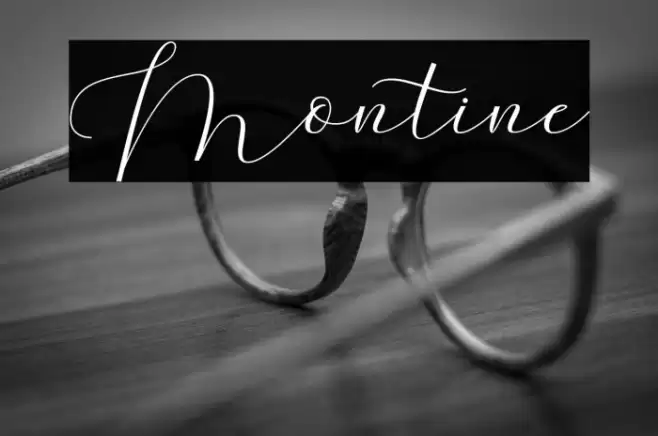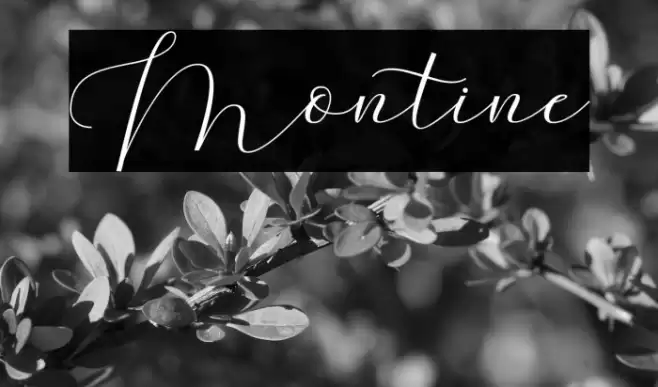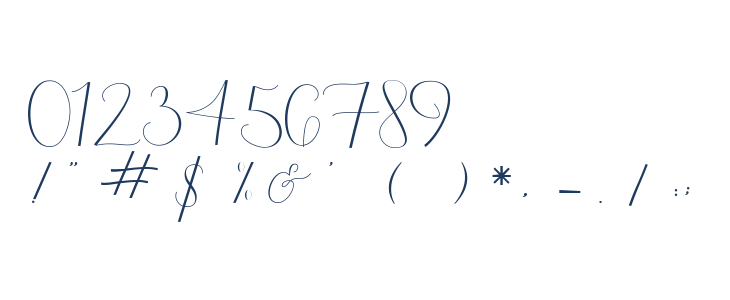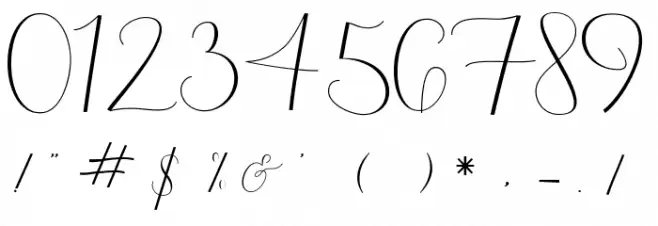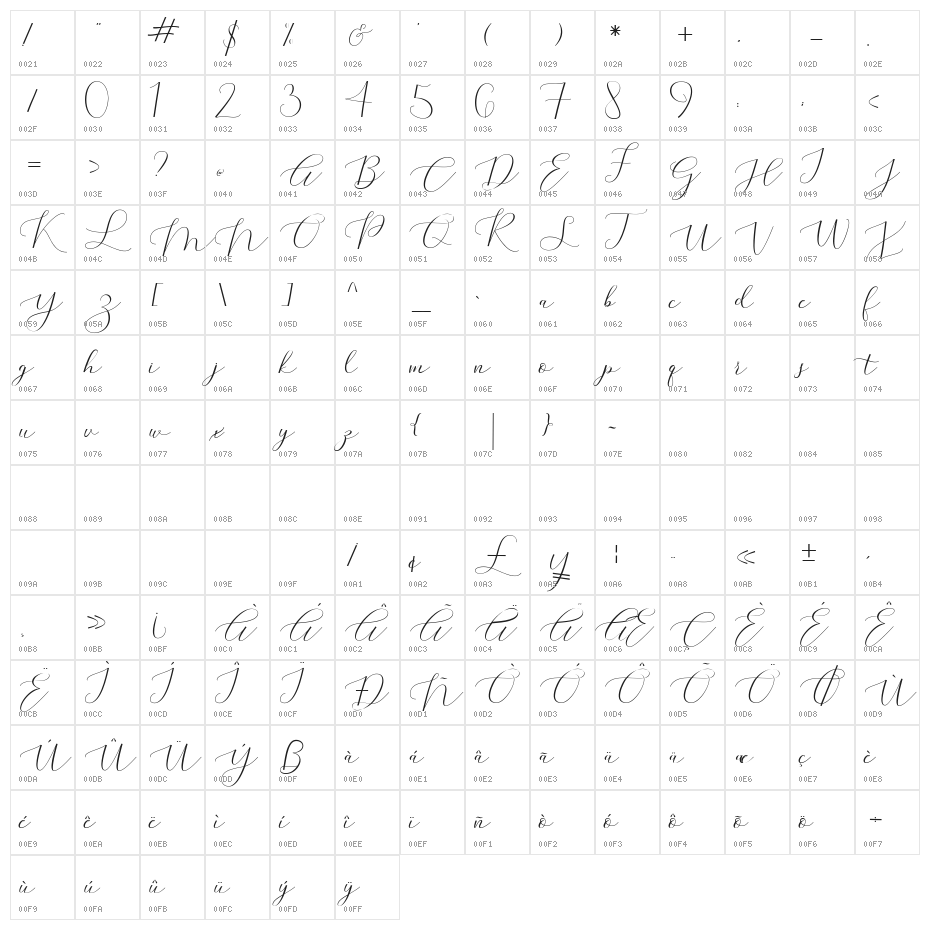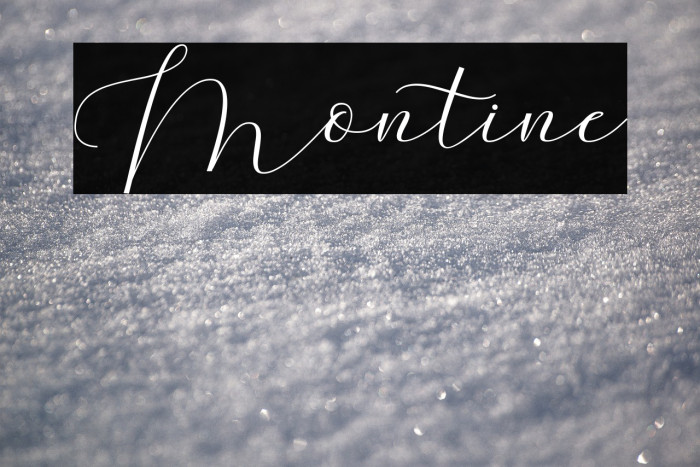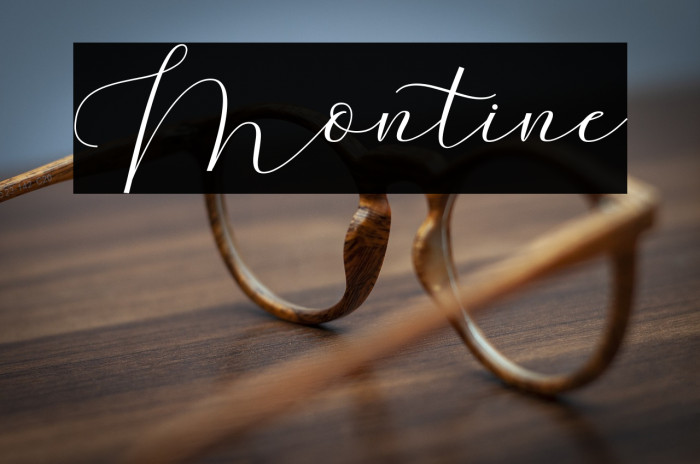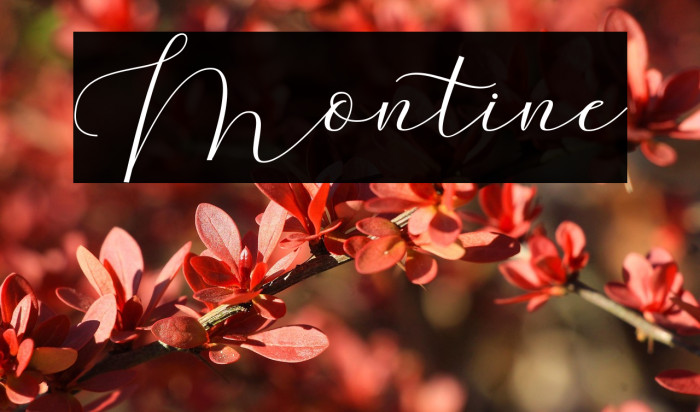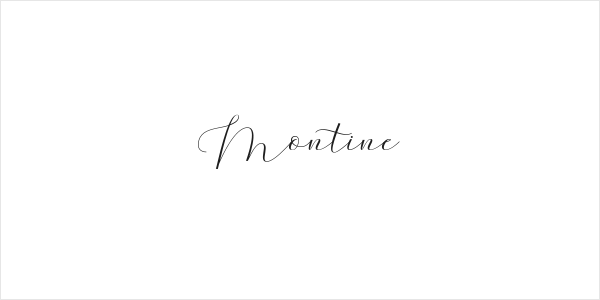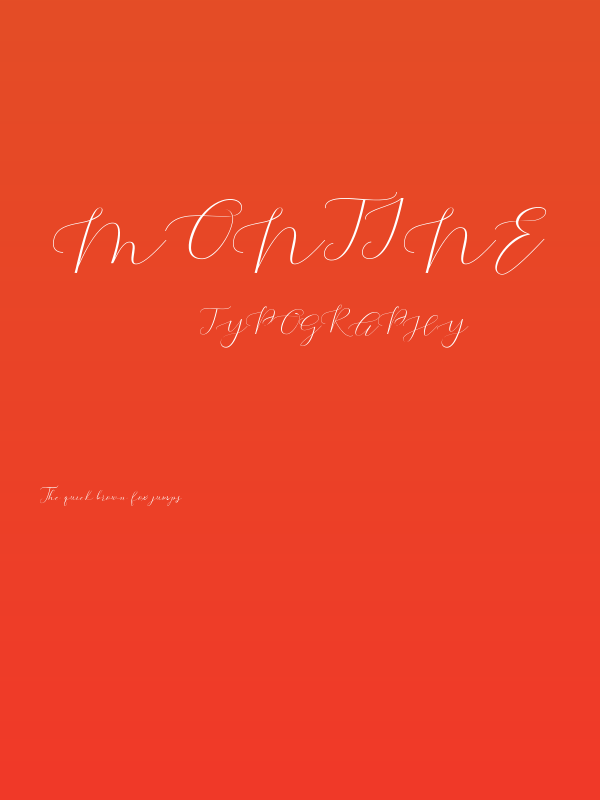
Montine Font
Montine Description
This elegant script font features a flowing, cursive style with a modern twist. The uppercase letters are delicate and airy, with graceful loops and curves that give them a sophisticated appearance. The lowercase letters are more bold and pronounced, maintaining the fluidity of the script while adding a touch of boldness. The numerals are sleek and stylish, complementing the overall aesthetic of the font. Special characters are thoughtfully designed, maintaining the cohesive look of the typeface. This font is perfect for projects that require a touch of elegance and modernity, such as wedding invitations, branding, and high-end product packaging.
A modern, elegant script font with flowing cursive style from Regular fonts.